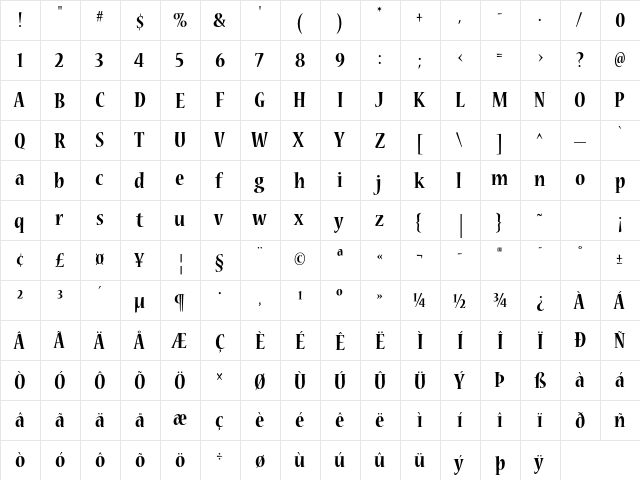
Nueva Std Bold Condensed Font Preview
Nueva Std Bold Condensed
| Designer | Carol Twombly |
Design Context for Nueva Std Typeface
Nueva Std takes a measured approach to typography — its balanced proportions and neutral character make it a reliable workhorse for both digital and print work. The heavy weight commands attention and anchors typographic hierarchies. The condensed width makes it efficient for tight spaces without sacrificing legibility.